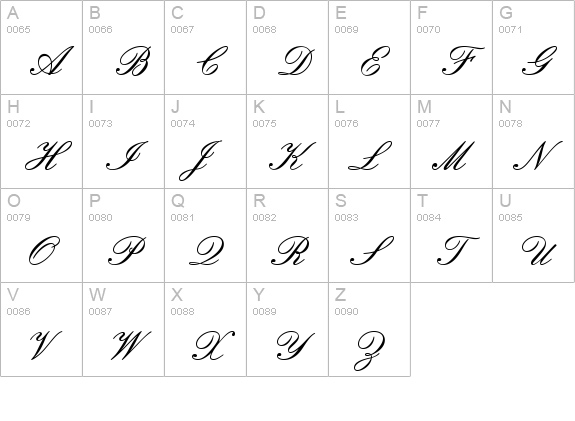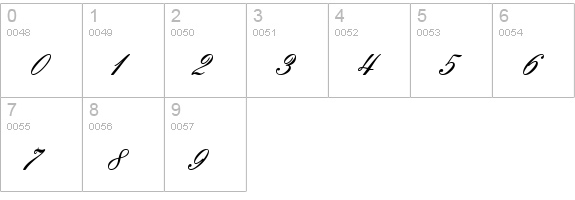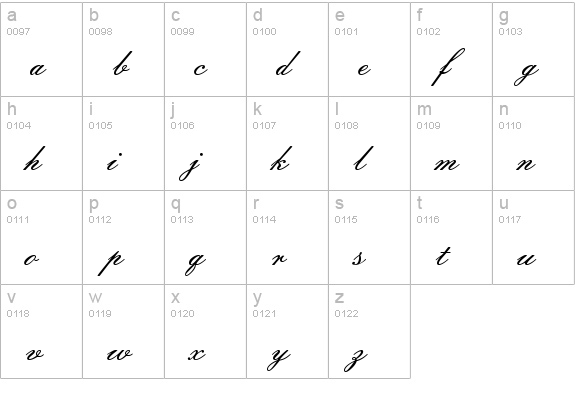
Embassy font is a stunning and elegant typeface that exudes sophistication and professionalism. With its sleek lines and classic appeal, this font is perfect for a wide range of design projects, from branding to editorial layouts. The timeless beauty of Embassy font makes it a versatile choice for both digital and print applications. The best part is that Embassy font is available for free download at FontsMarket.com. You can easily access this exquisite font and use it in your projects without any cost. Don't miss out on the opportunity to elevate your designs with the timeless charm of Embassy font, now easily accessible for free at FontsMarket.com.